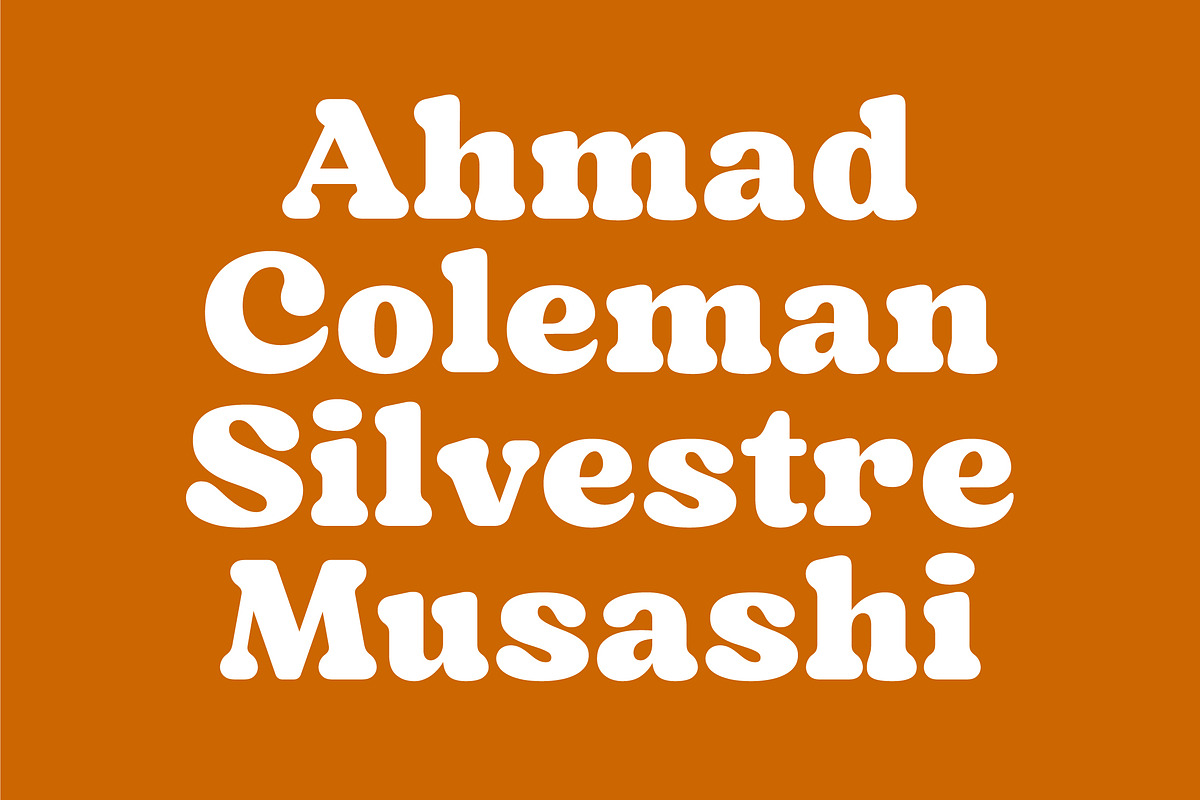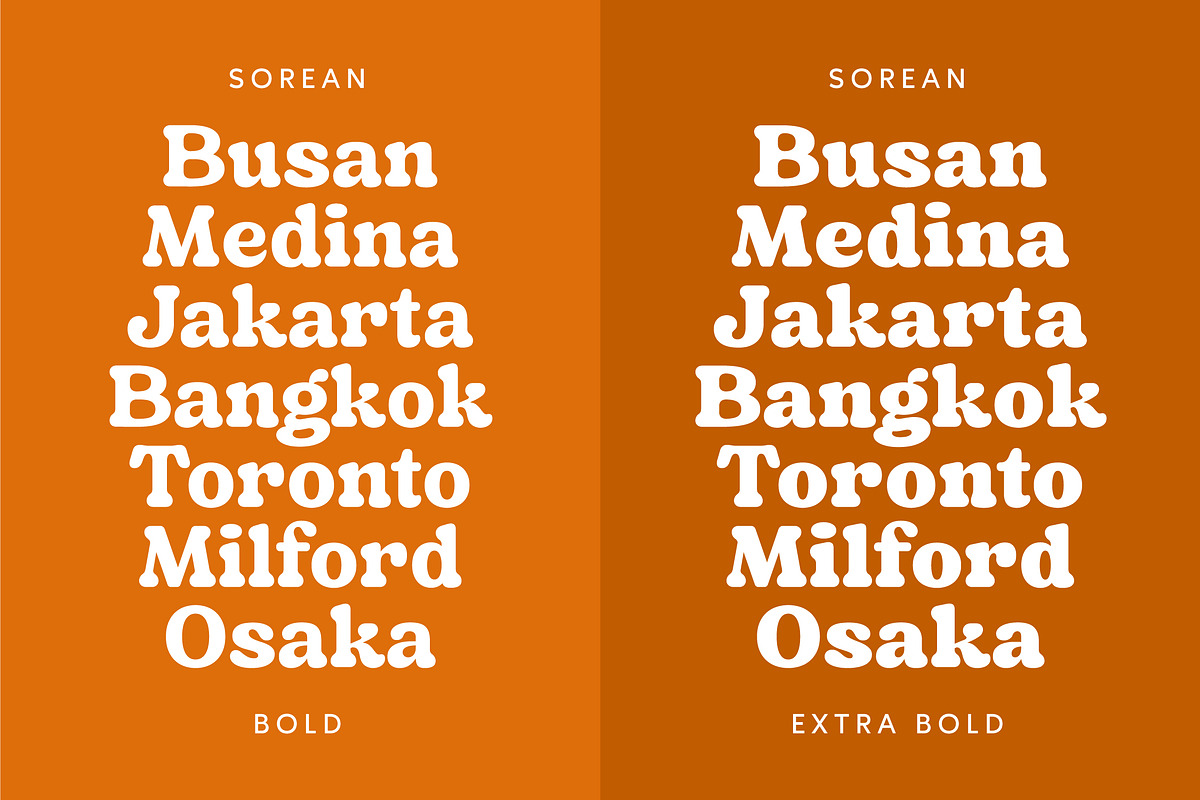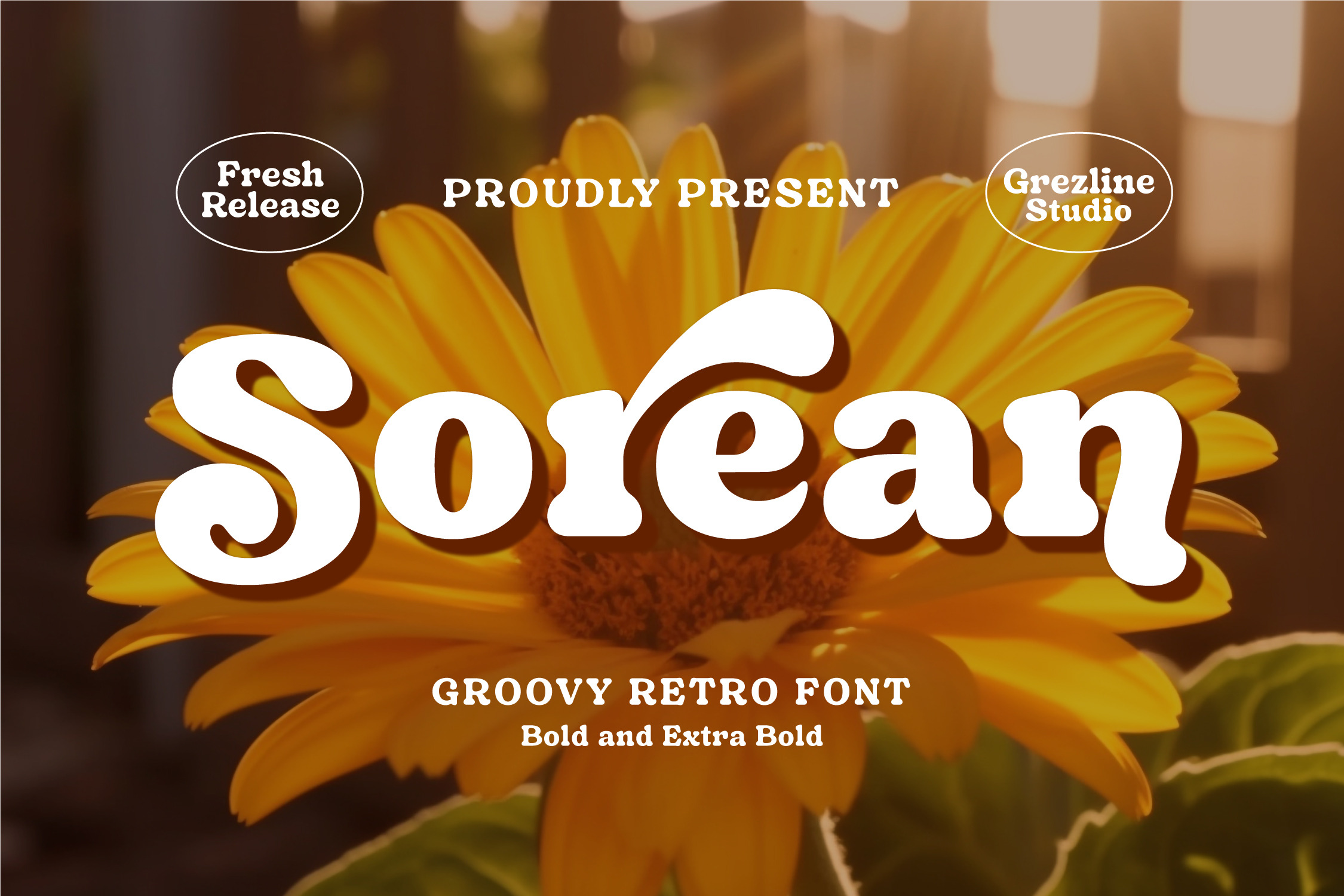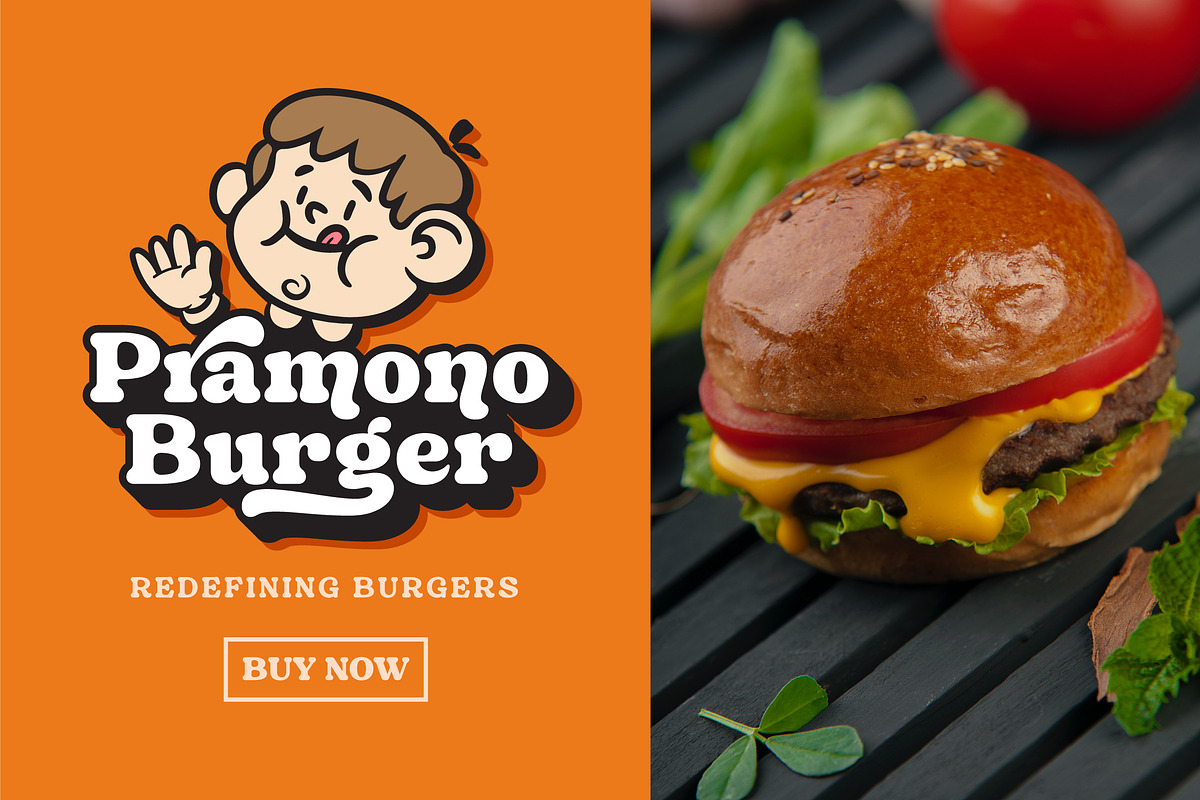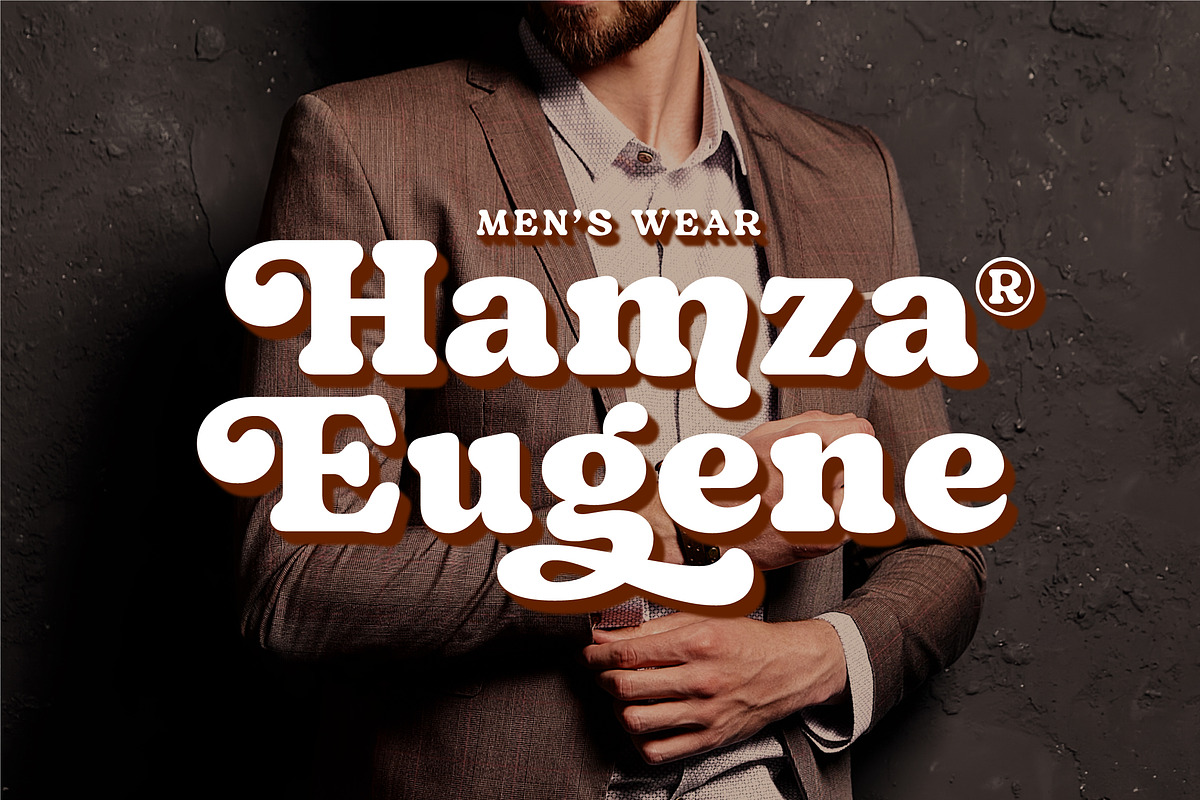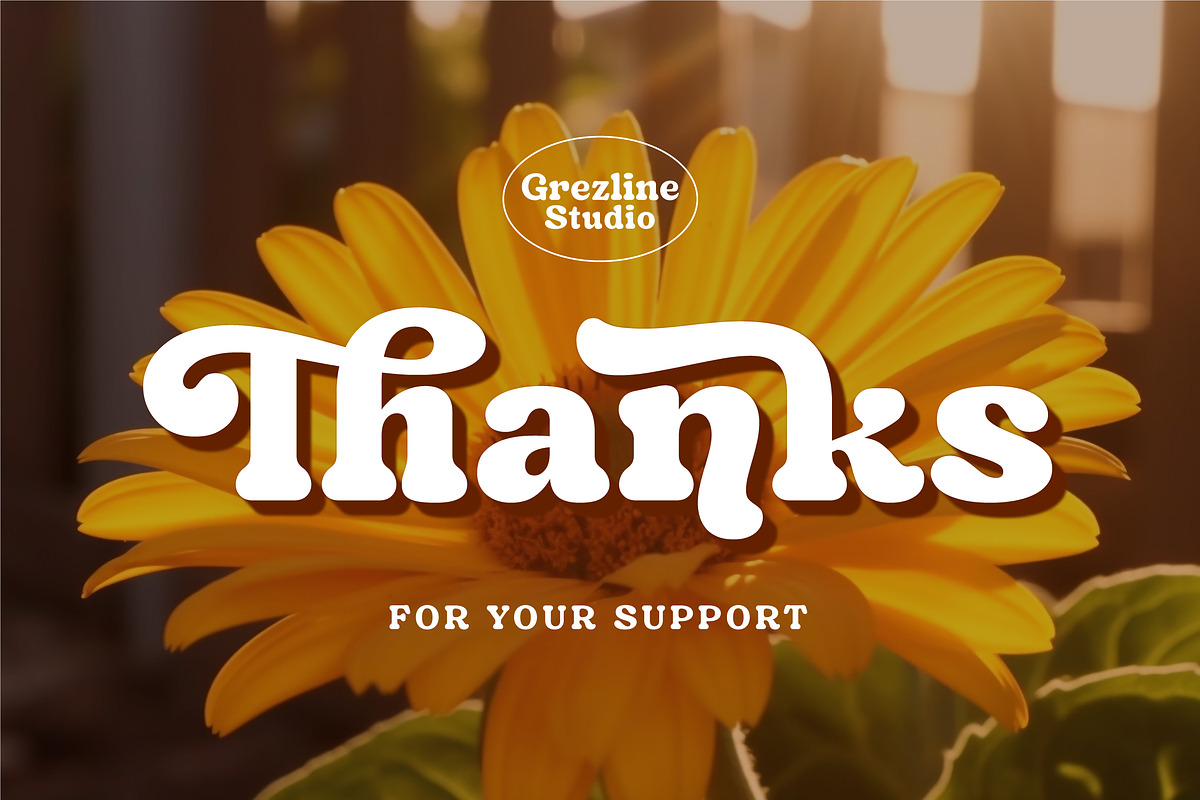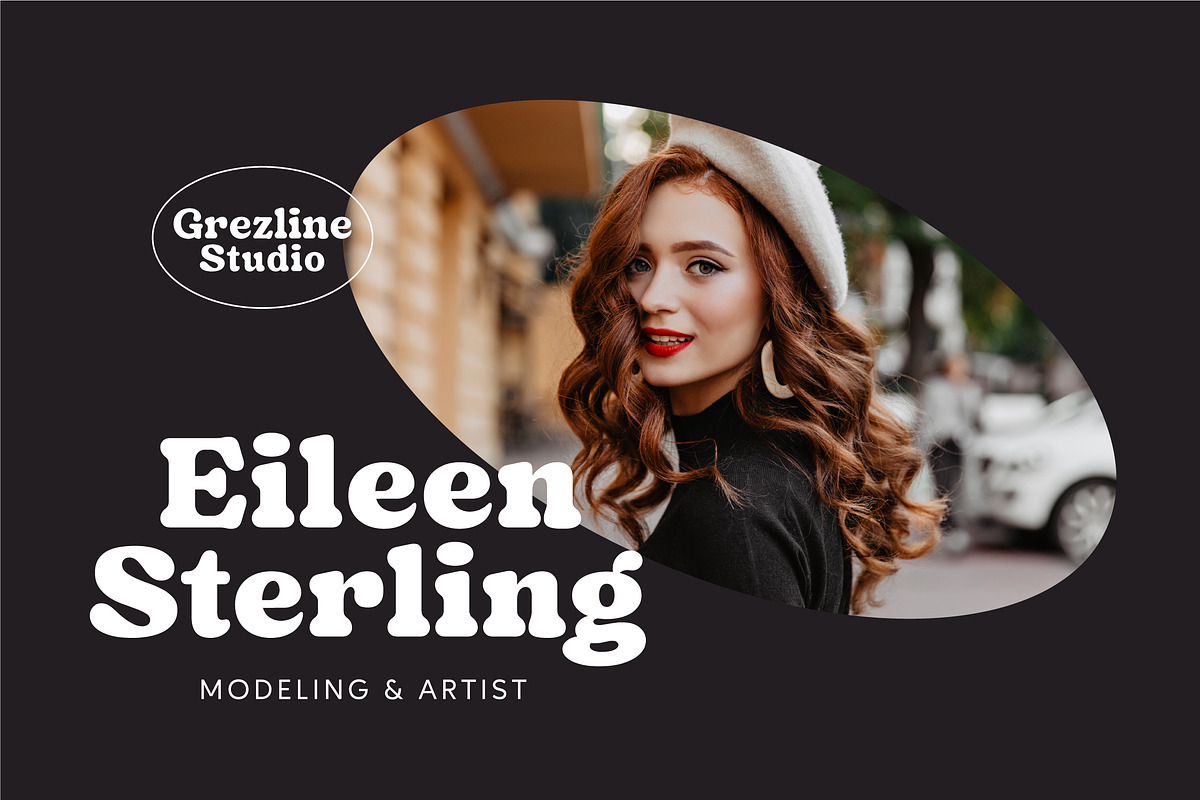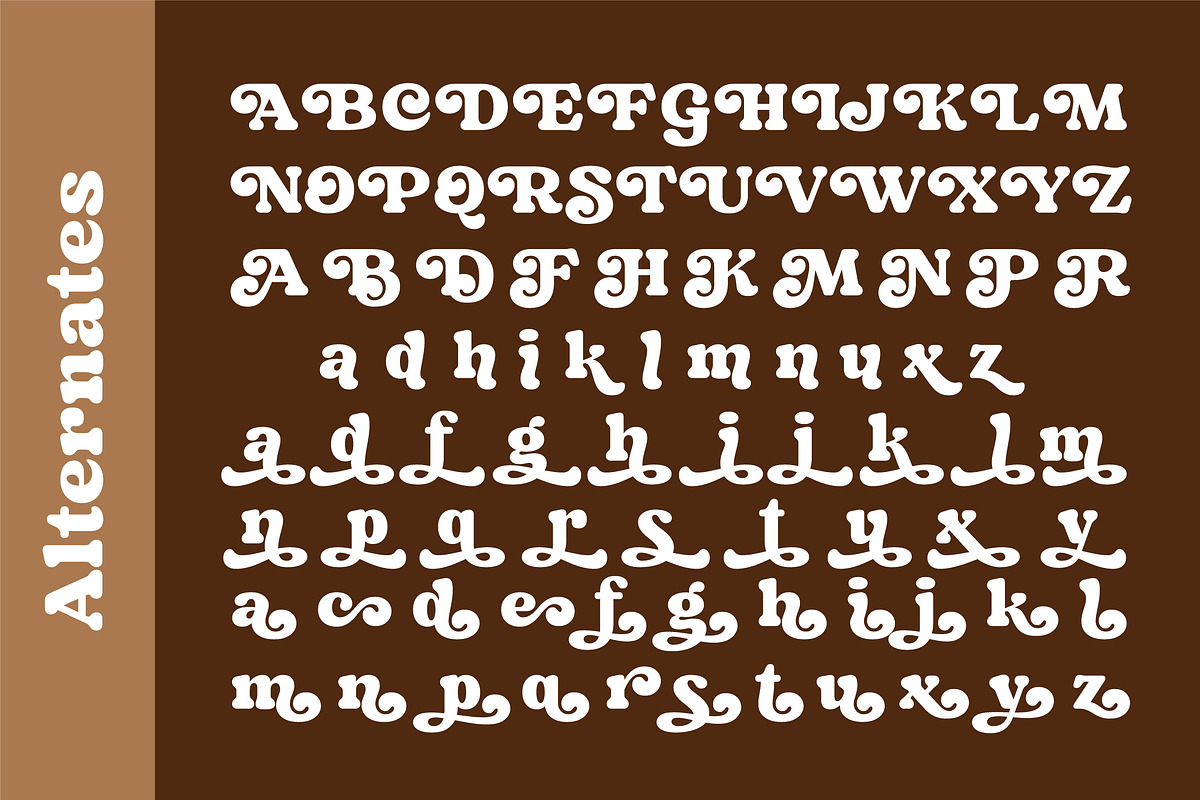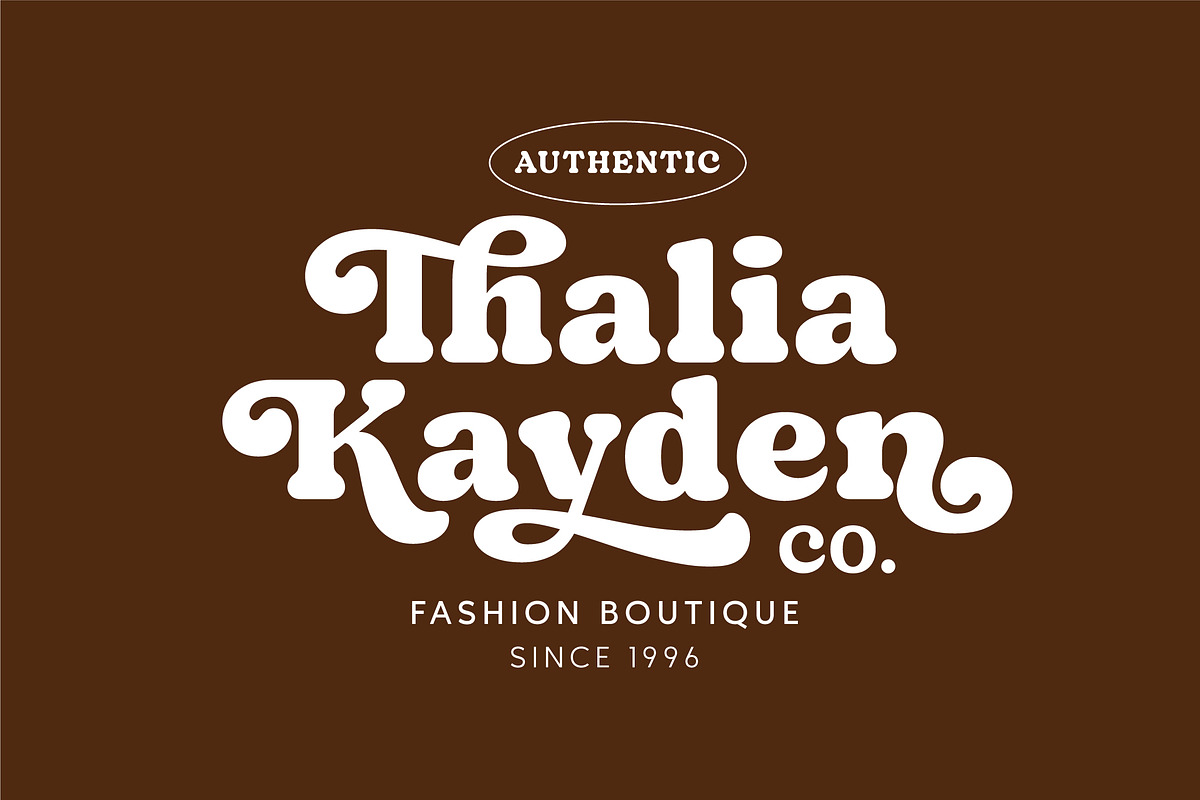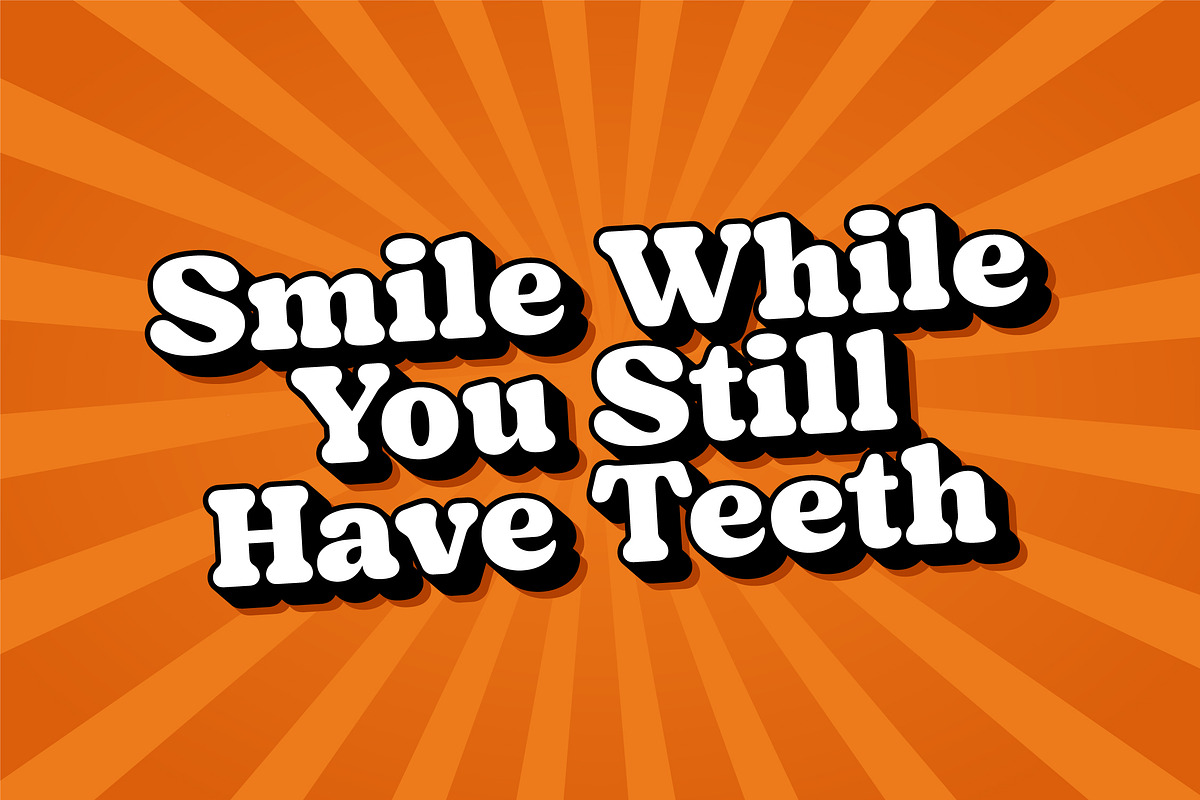
Sorean - Groovy Retro Font
Hello creative people! Let me introduce you my latest font creation called Sorean!
Sorean is a groovy retro font with a lot of alternate glyphs. This font has expressive and cheerful characteristics, perfectly match for groovy and retro design. Sorean font is also usable in a wide range of works such as logos, covers, posters, quotes, product packaging, merchandise, social media and much more!
- Ligature & Alternate glyphs